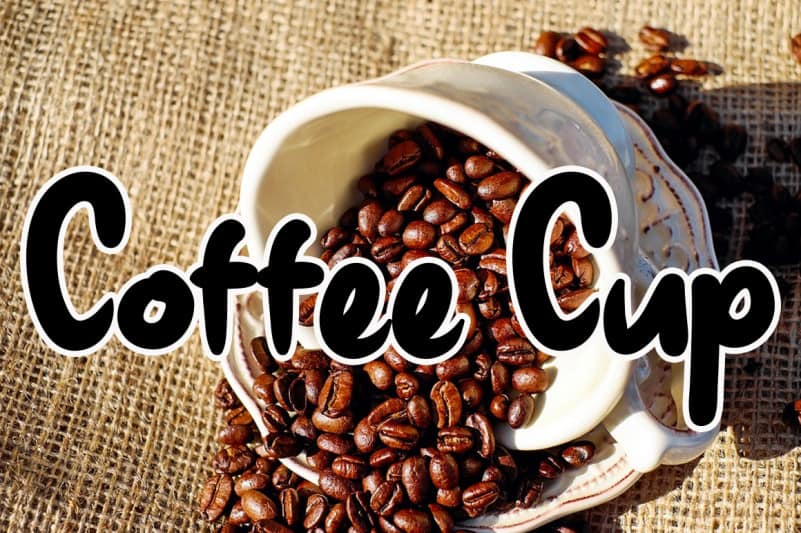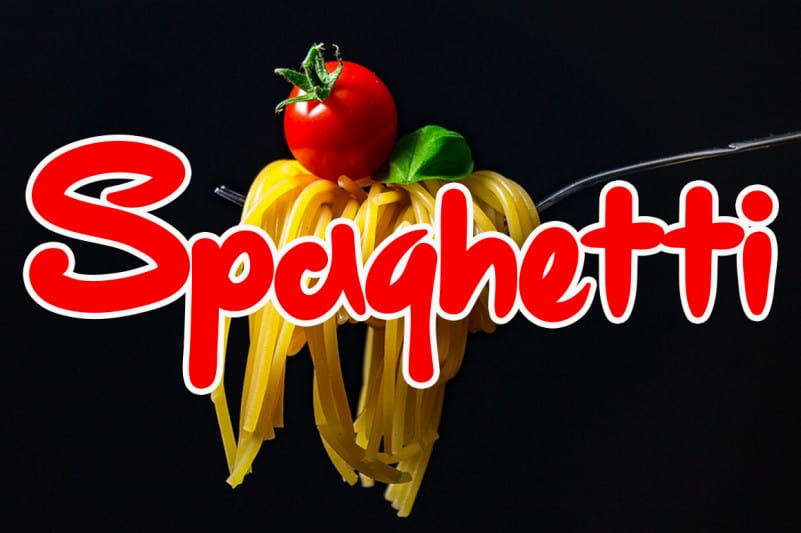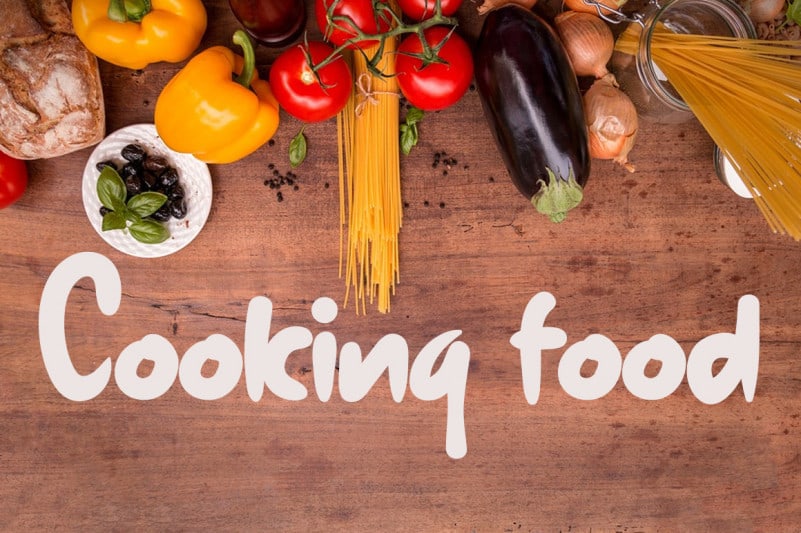
Rere Rare Font
Rere Rare Font is a simple, thin and sweet paint brushed handwritten font. Incredibly versatile, this font fits a wide pool of designs, elevating them to the highest levels.
Latest letters that can be used for various products, invitations, wall hangings, weddings, and more.